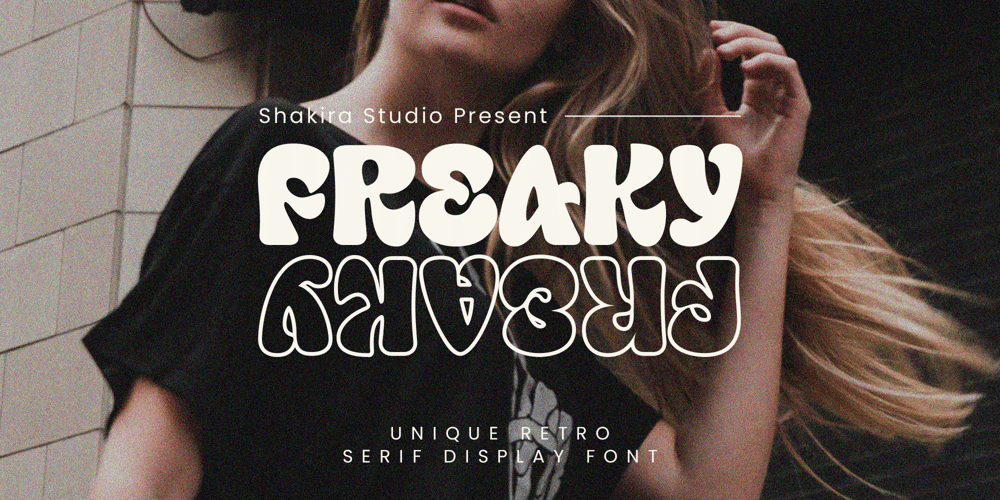
Freaky Font Family was designed by Idhham Cholid Rikzano Yahya and published by Shakira Studio. Freaky contains 2 styles and family package options. Start good day for new font! present to you, Freaky!Freaky is a unique display serif font with two versions, regular and outline. Specially designed to create a striking and eccentric look in a variety of design projects.Freaky is a great choice for design projects that require a unique and striking visual identity. From bold branding to creative t-shirt designs, this font will add an unforgettable visual touch to any design medium you use.What did you get? Unique letterforms Works on PC & Mac Simple Installations Accessible in the Adobe Illustrator, Adobe Photoshop, Microsoft Word even work on Canva! PUA Encoded Characters Fully accessible without additional design software. I really hope you’ll get pleasure using Freaky font and it will be perfect addition to your font collection! If you have some questions, please write me a letter!Shakira Studio